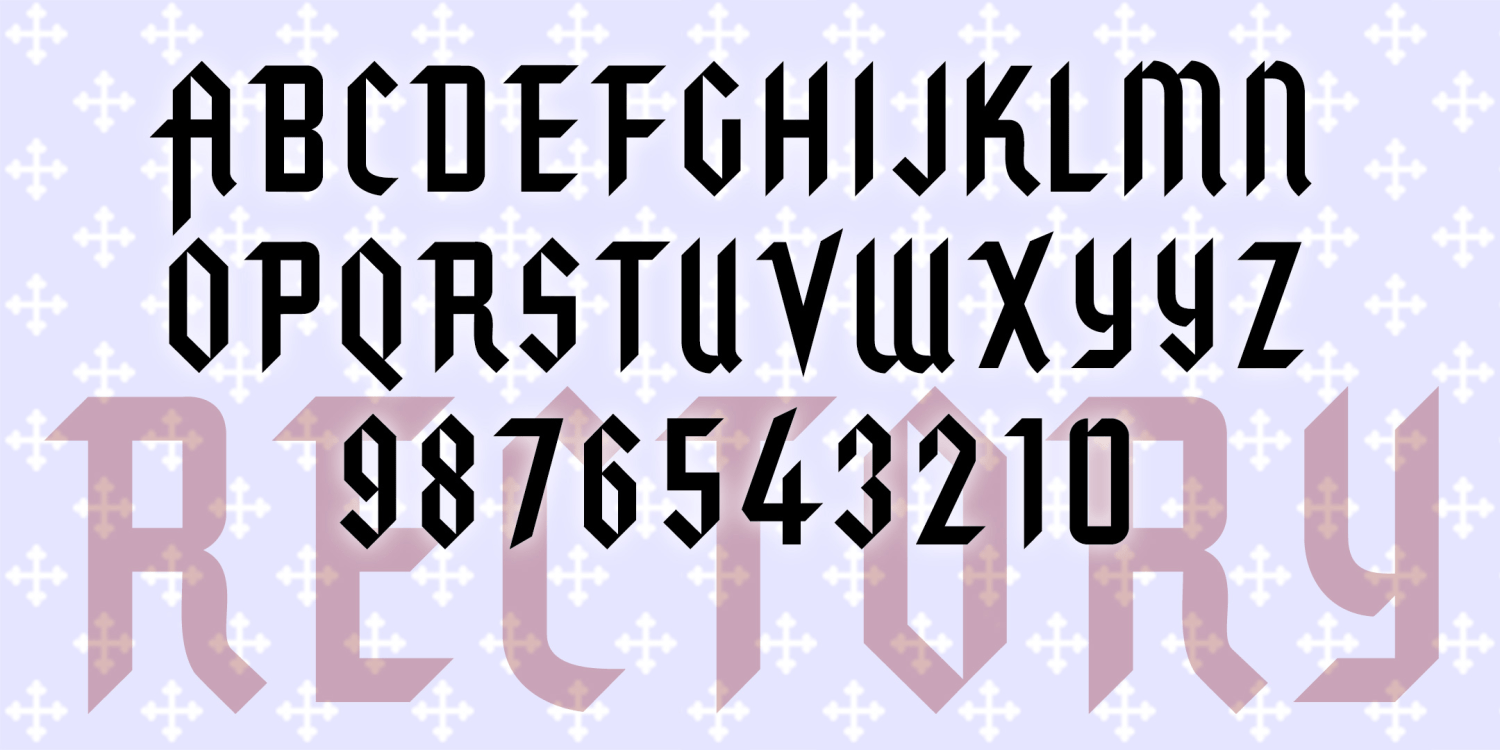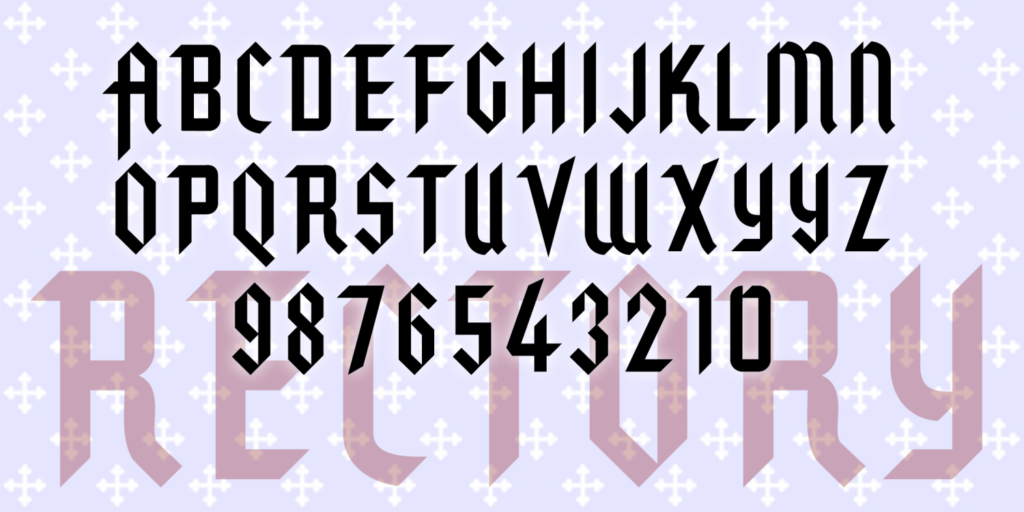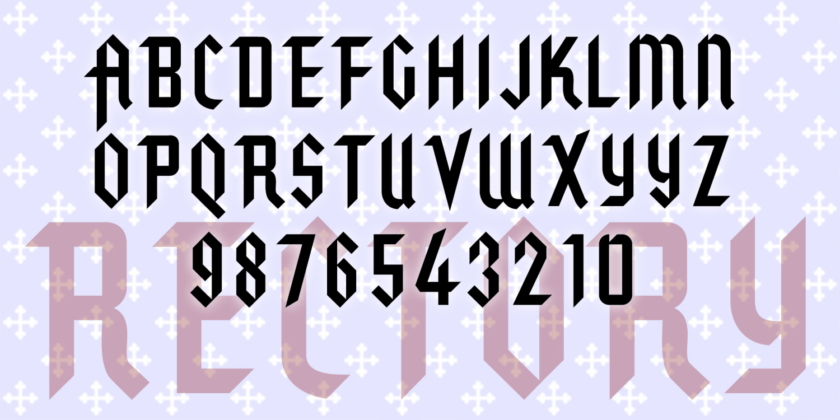
Rectory
About Rectory
RECTORY, PARSONAGE and VICARAGE are decorative fonts, each with a romantic, historical feel and inspired by old film titles. Each could also be used to suggest Olde Worlde gentility, holiday festivity, or spirituality. Each font is all caps with many…